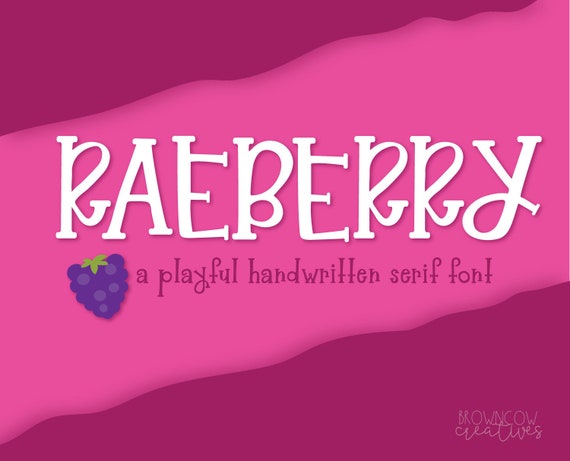
Introducing Raeberry! A playful, fun handwritten font. Raeberry includes basic Latin and provides multilingual support with accented characters for Western European users. This whimsical font is perfect for crafts from summertime to Christmastime.